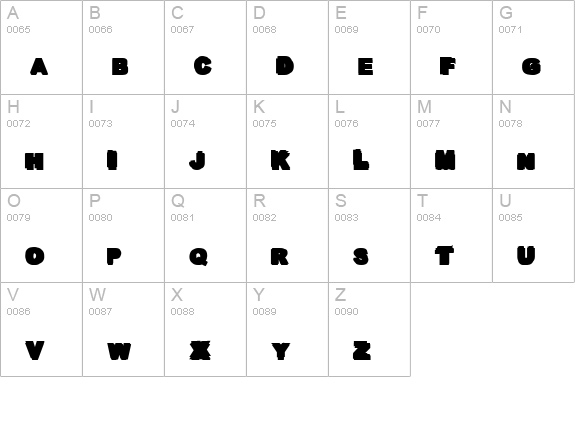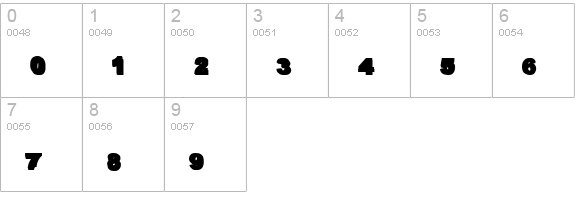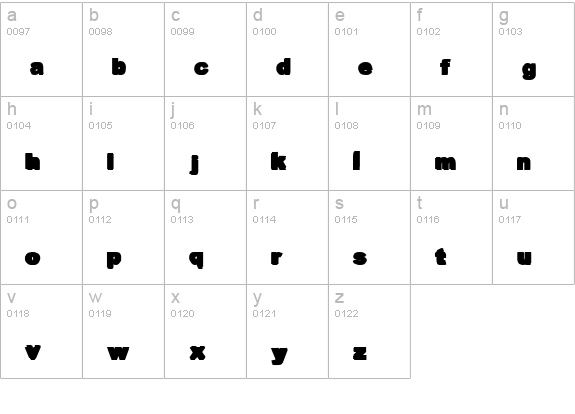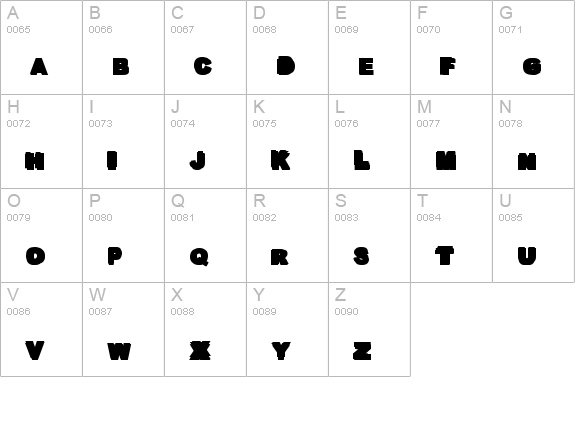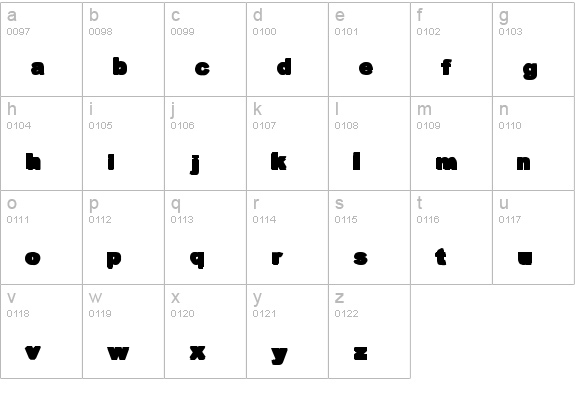
Overprint Black is a maximum-weight, dramatic variant in the Overprint typeface family \xE2\x80\x94 well suited to maximum-impact headlines, posters, and packaging.
Overprint Black font is a versatile and stylish typeface that exudes elegance and sophistication. Its bold and striking design makes it perfect for headlines, posters, and branding materials. With its unique overprint effect, this font adds a touch of creativity to any project. The best part is that Overprint Black font is available for free download at FontsMarket.com. Don't miss out on the opportunity to enhance your design projects with this eye-catching typeface. Download it now and add a touch of sophistication to your work!